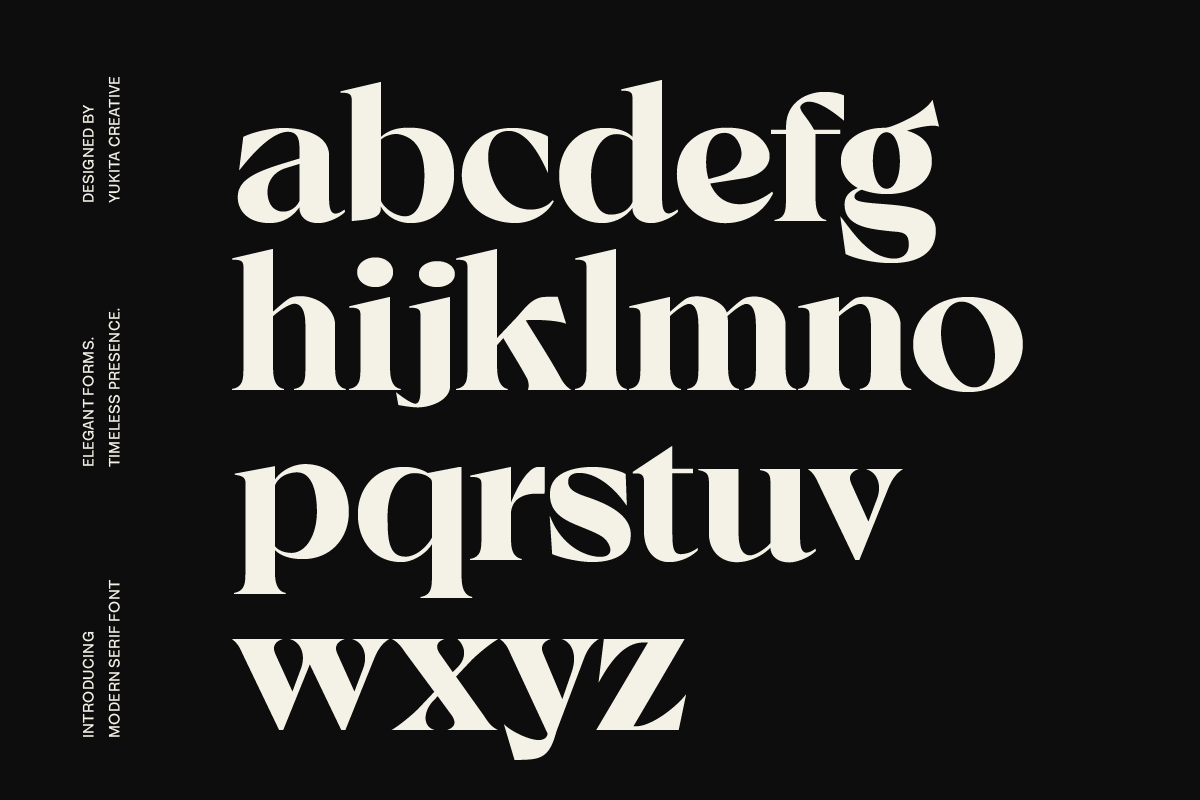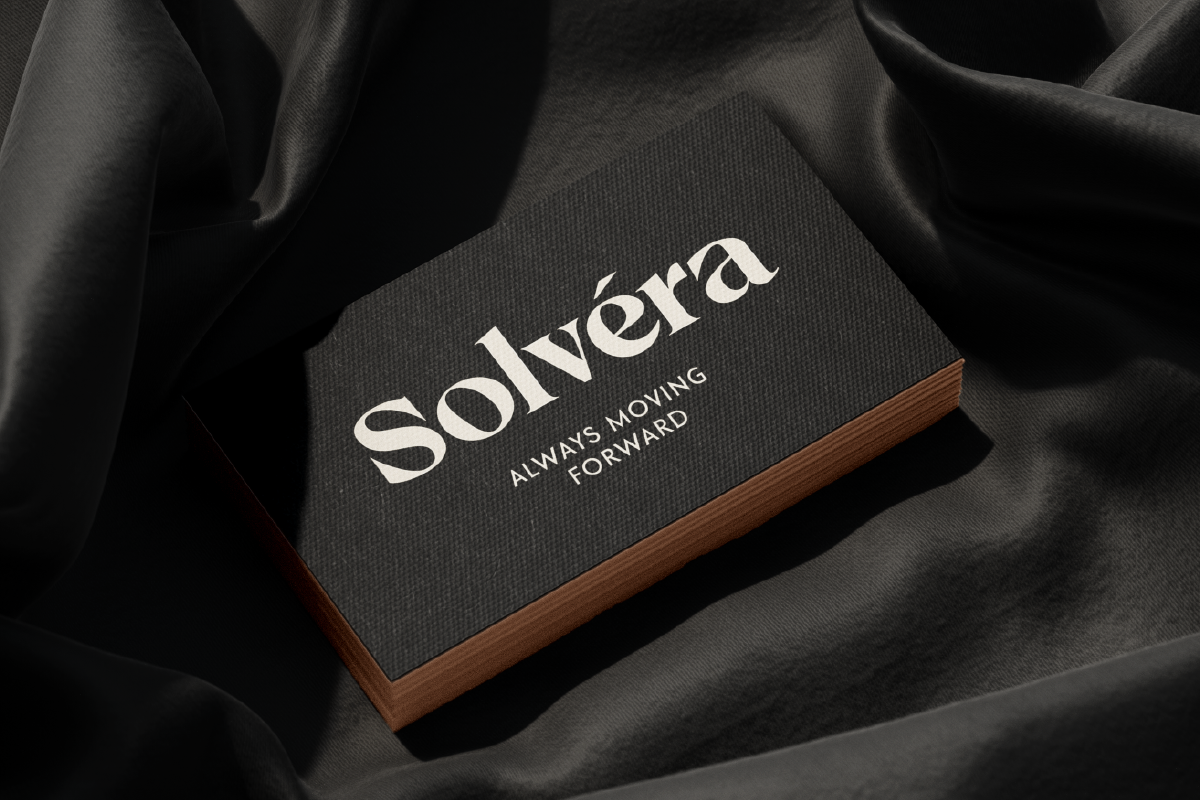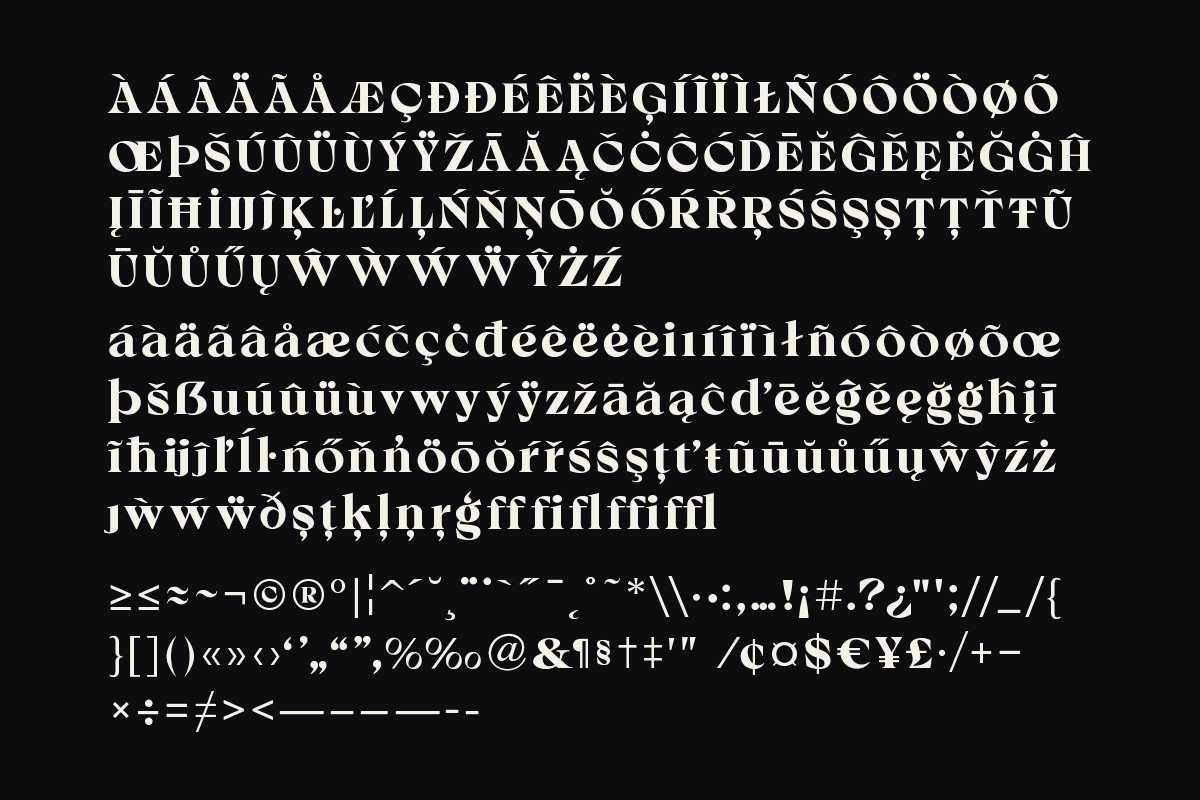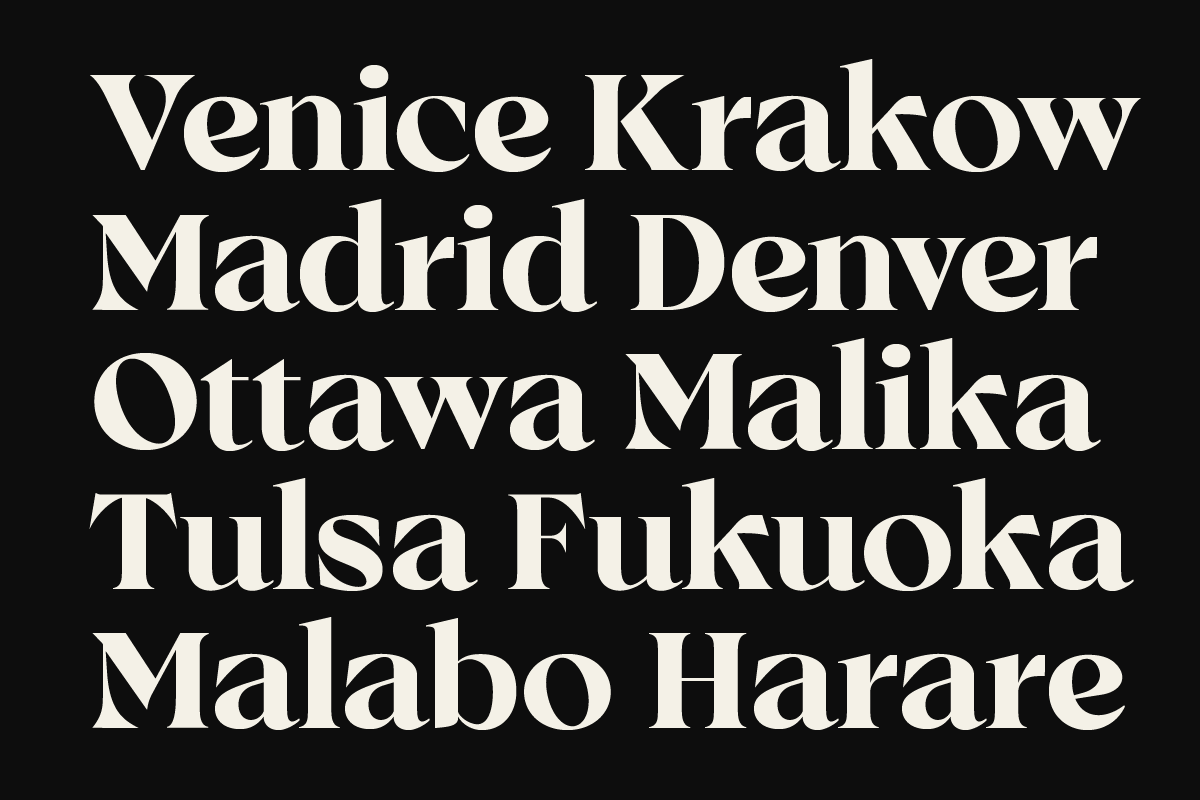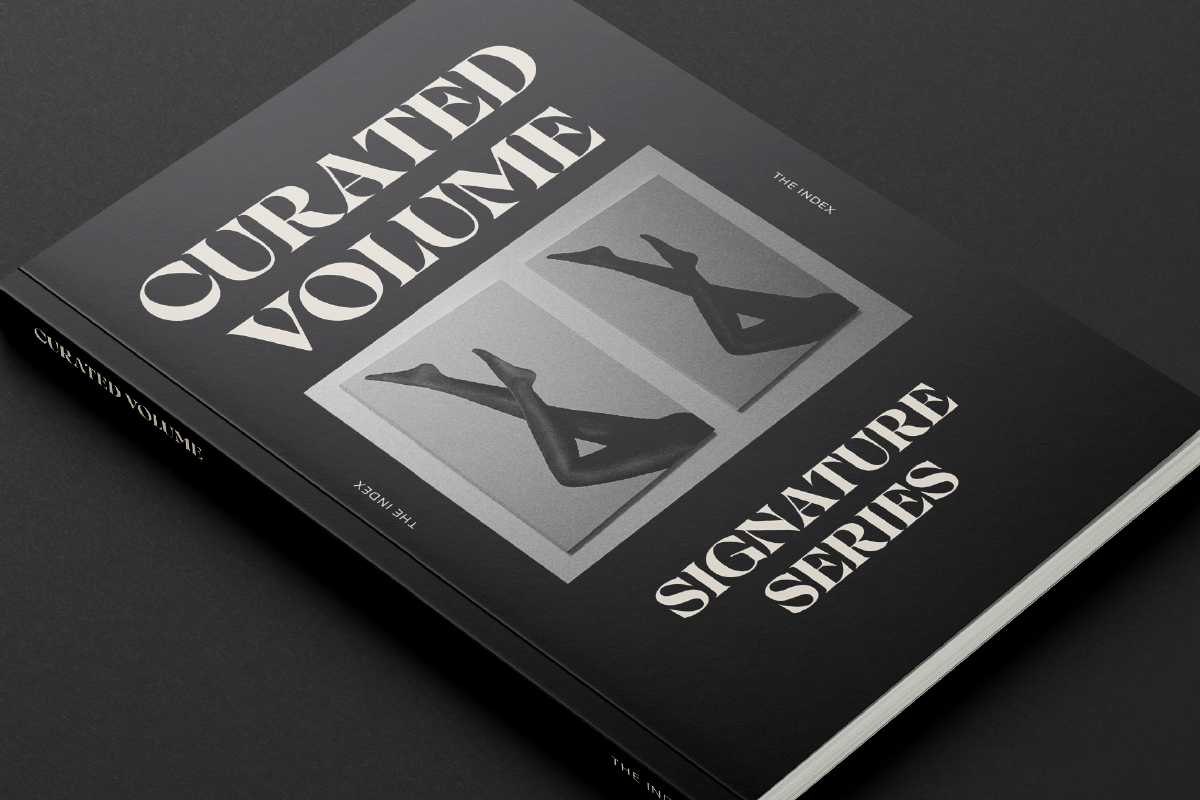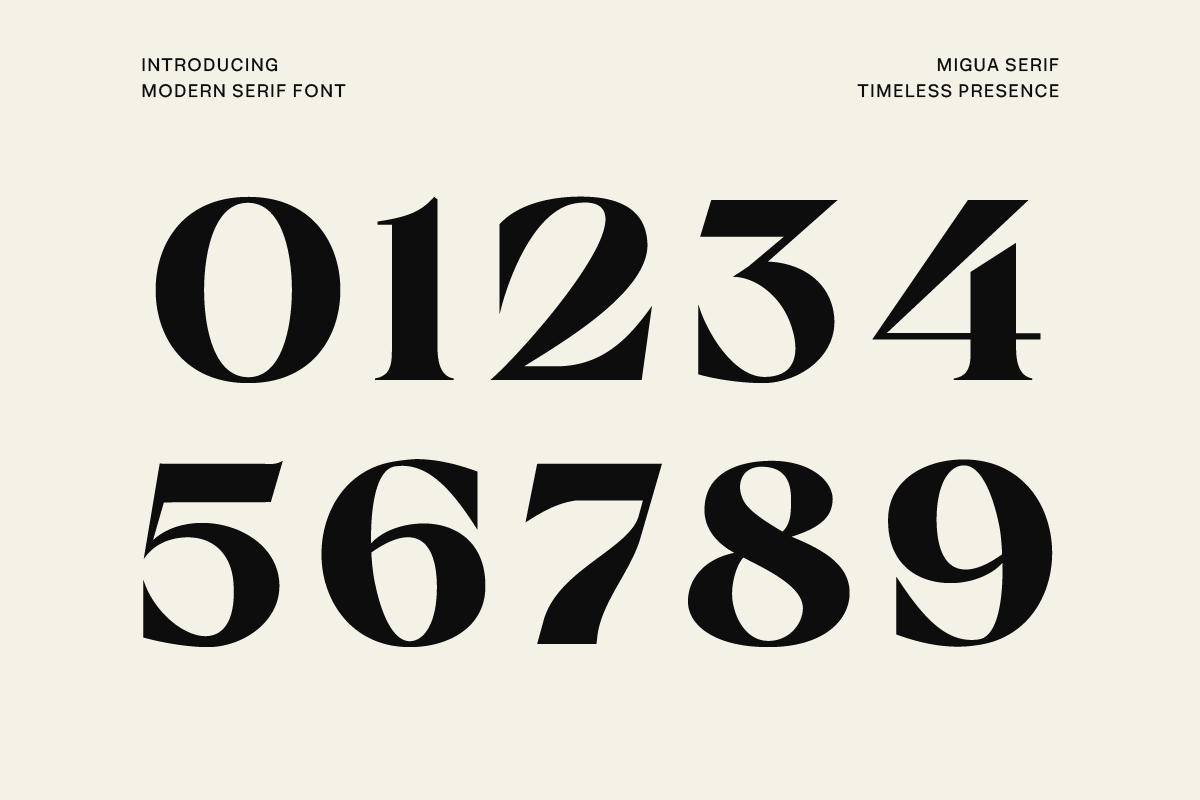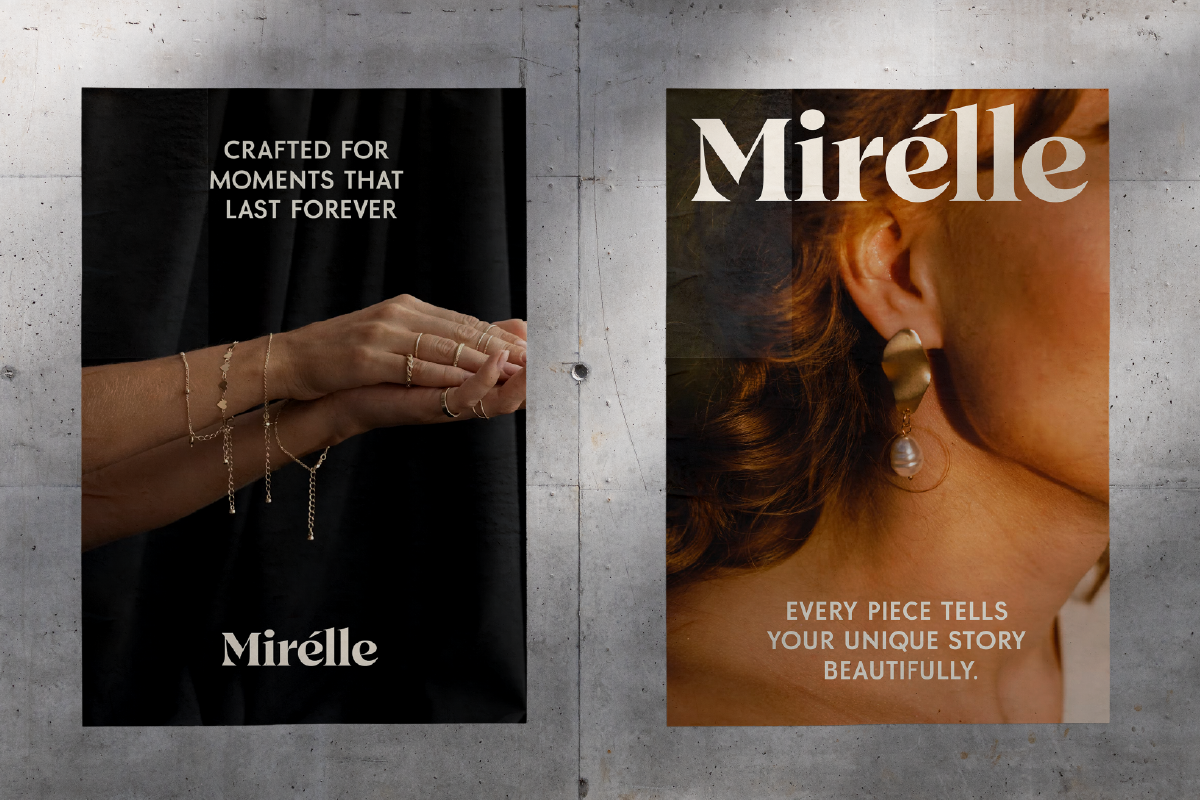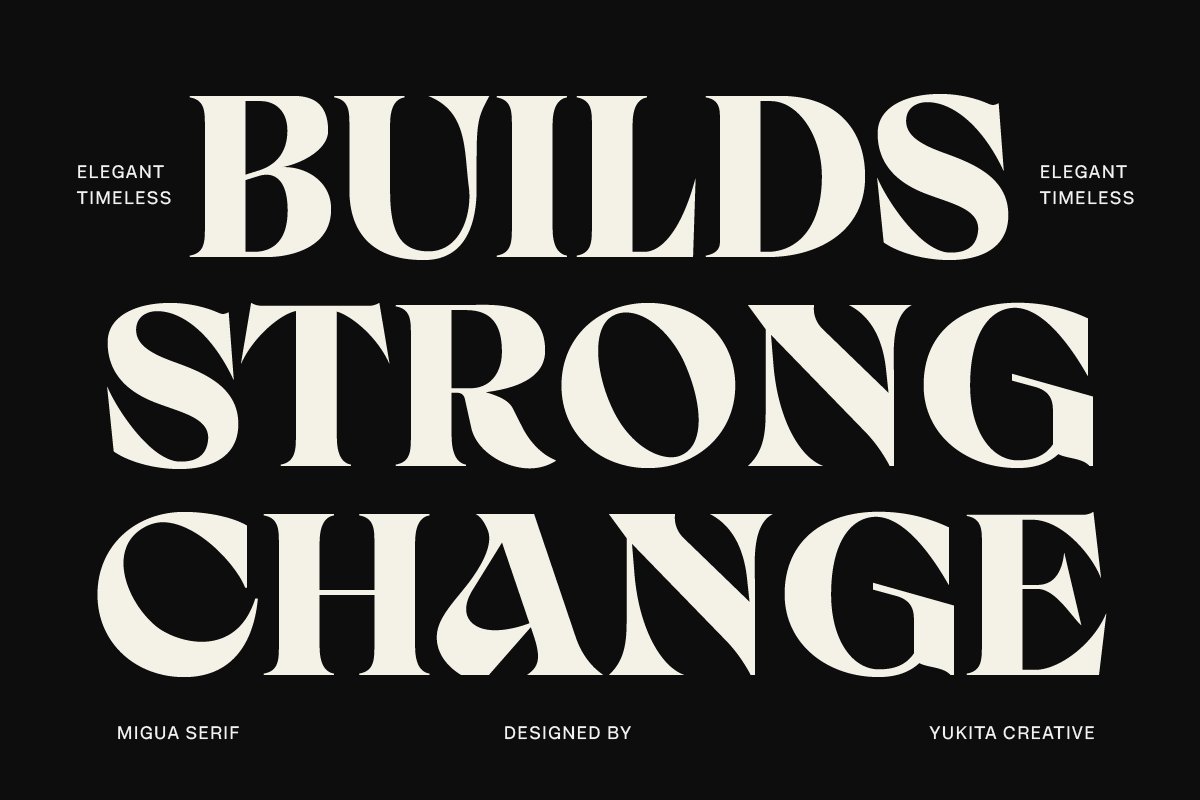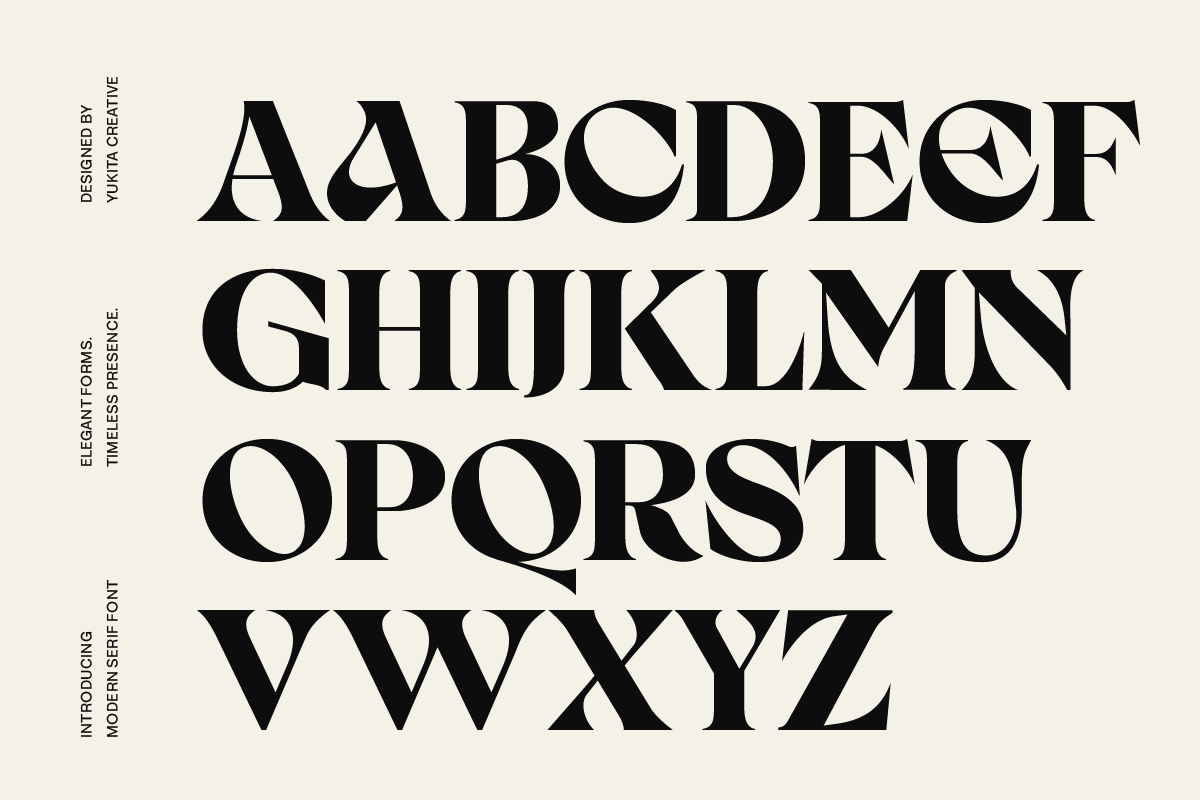
Migua – Timeless Serif
Migua Serif is a refined display serif typeface designed for timeless branding, editorial design, and distinctive visual identities. Inspired by classic typography with a contemporary twist, it combines elegant high-contrast strokes, sculptural serifs, and distinctive geometric cuts to create a bold yet graceful appearance.
Every letter has been carefully crafted to make headlines more captivating, logos more memorable, and branding more enduring. Whether you're creating a fashion campaign, cosmetic packaging, boutique identity, or editorial layout, Migua Serif delivers timeless sophistication with effortless style.
Designed to stand out without overwhelming the design, Migua Serif is perfect for brands that value elegance, confidence, and lasting impressions.